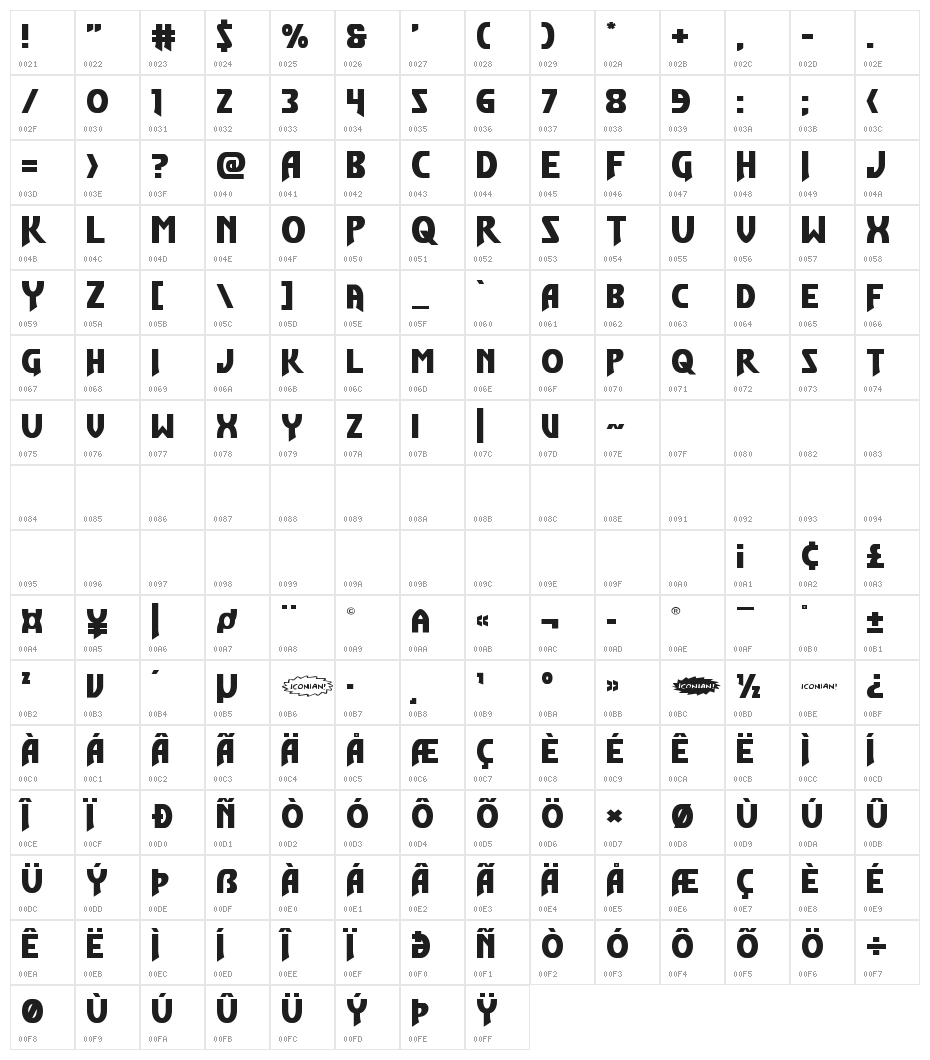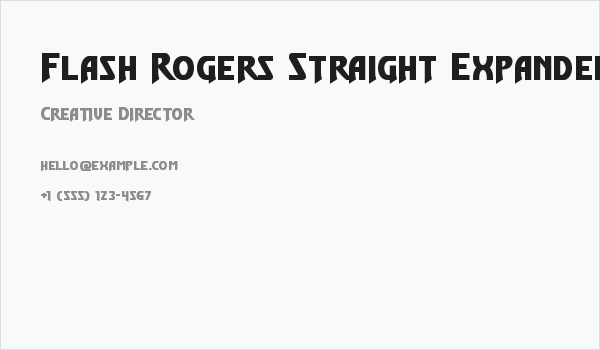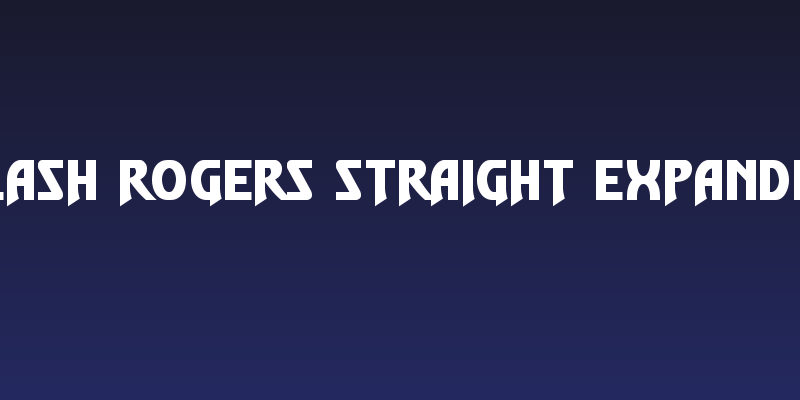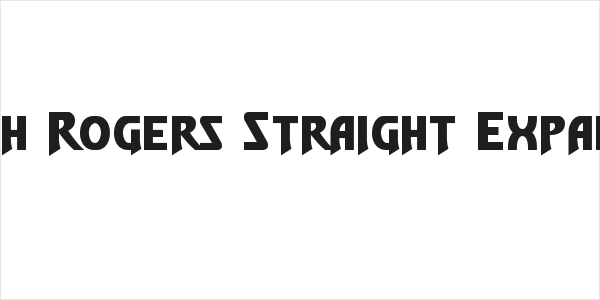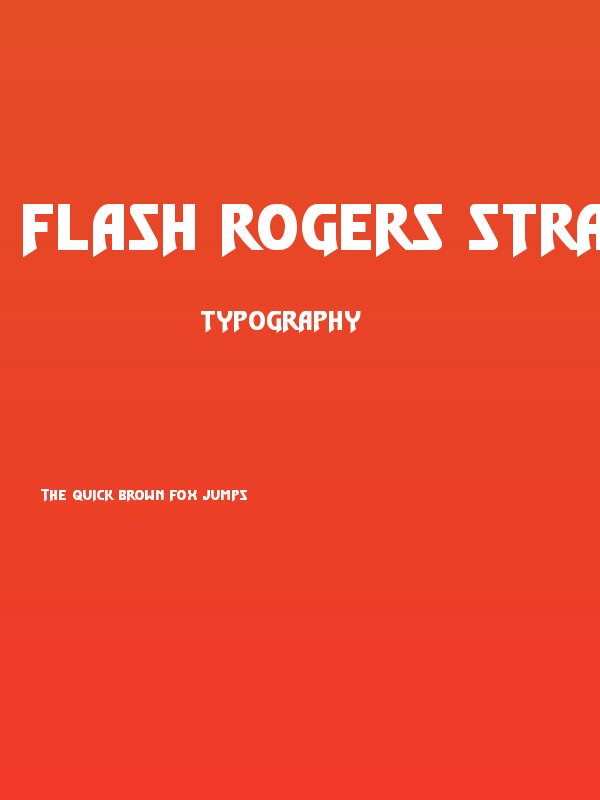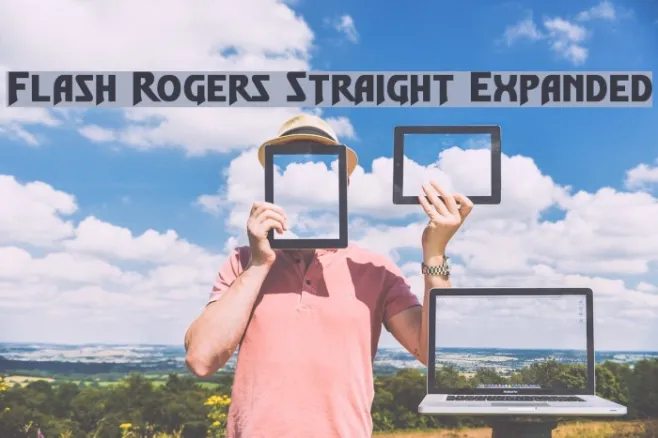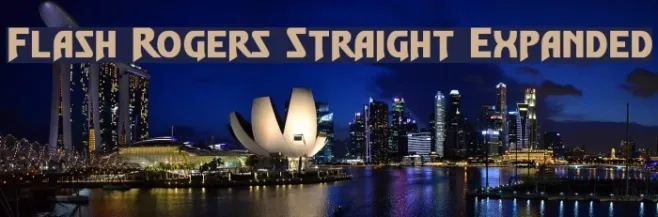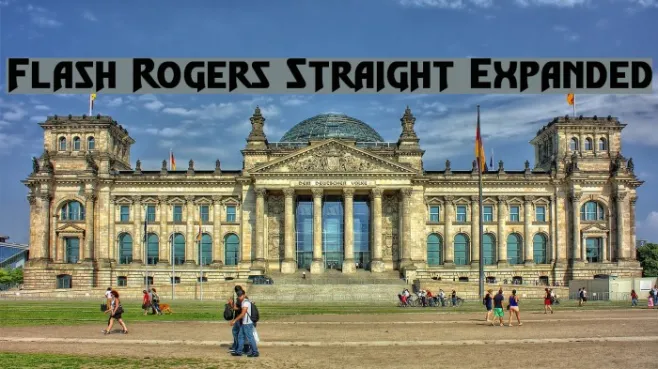
Flash Rogers Straight Expanded Font
Flash Rogers Straight Expanded Description
This font features a bold and dynamic style with sharp, angular edges and a geometric structure. The characters are designed with a strong presence, making them ideal for attention-grabbing headlines or titles. The uppercase letters exhibit a unique blend of straight lines and curves, while the lowercase letters maintain a consistent style that complements the uppercase. The numerals are equally bold, ensuring readability and impact. Special characters are designed to match the overall aesthetic, providing a cohesive look across all glyphs. The font's expanded width allows for a commanding presence, making it suitable for various design applications.
| Proposed Projects | Perfect for posters, logos, branding materials, and any design requiring a bold statement. |